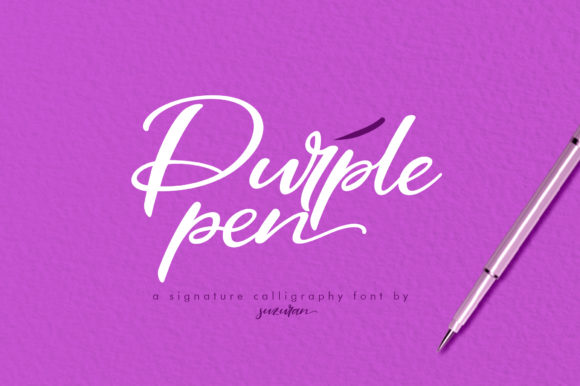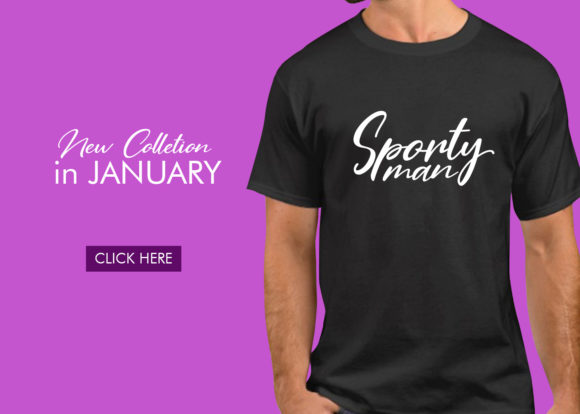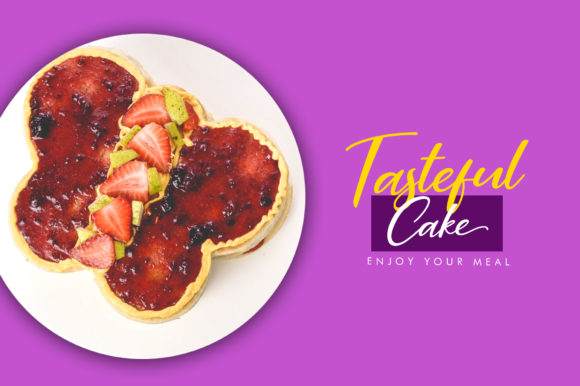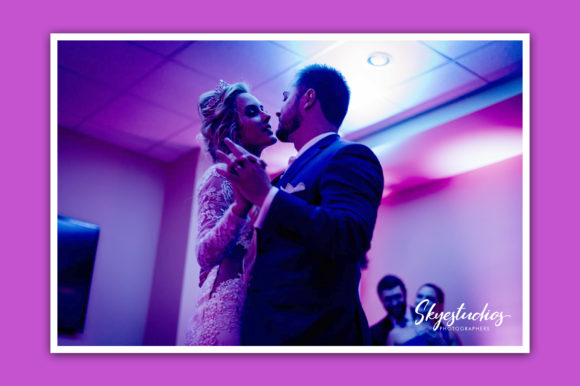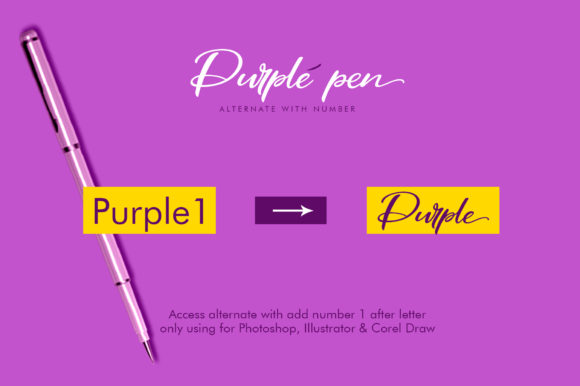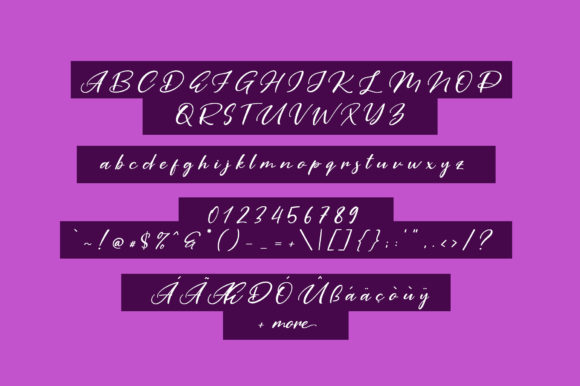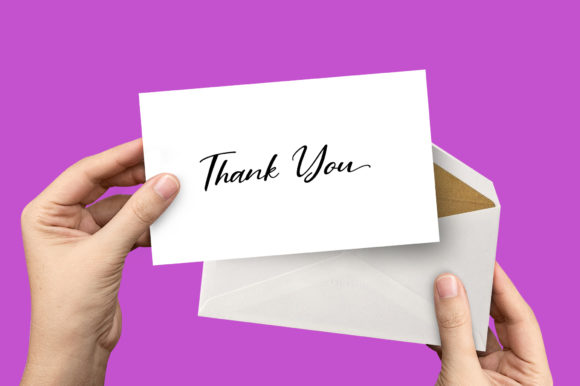
Purple Pen Font
About Purple Pen Font
The Purple Pen is a fresh and unique script font. It has a fun and elegant feel which can be used to create your own logo, poster, wedding invitation, and much more!